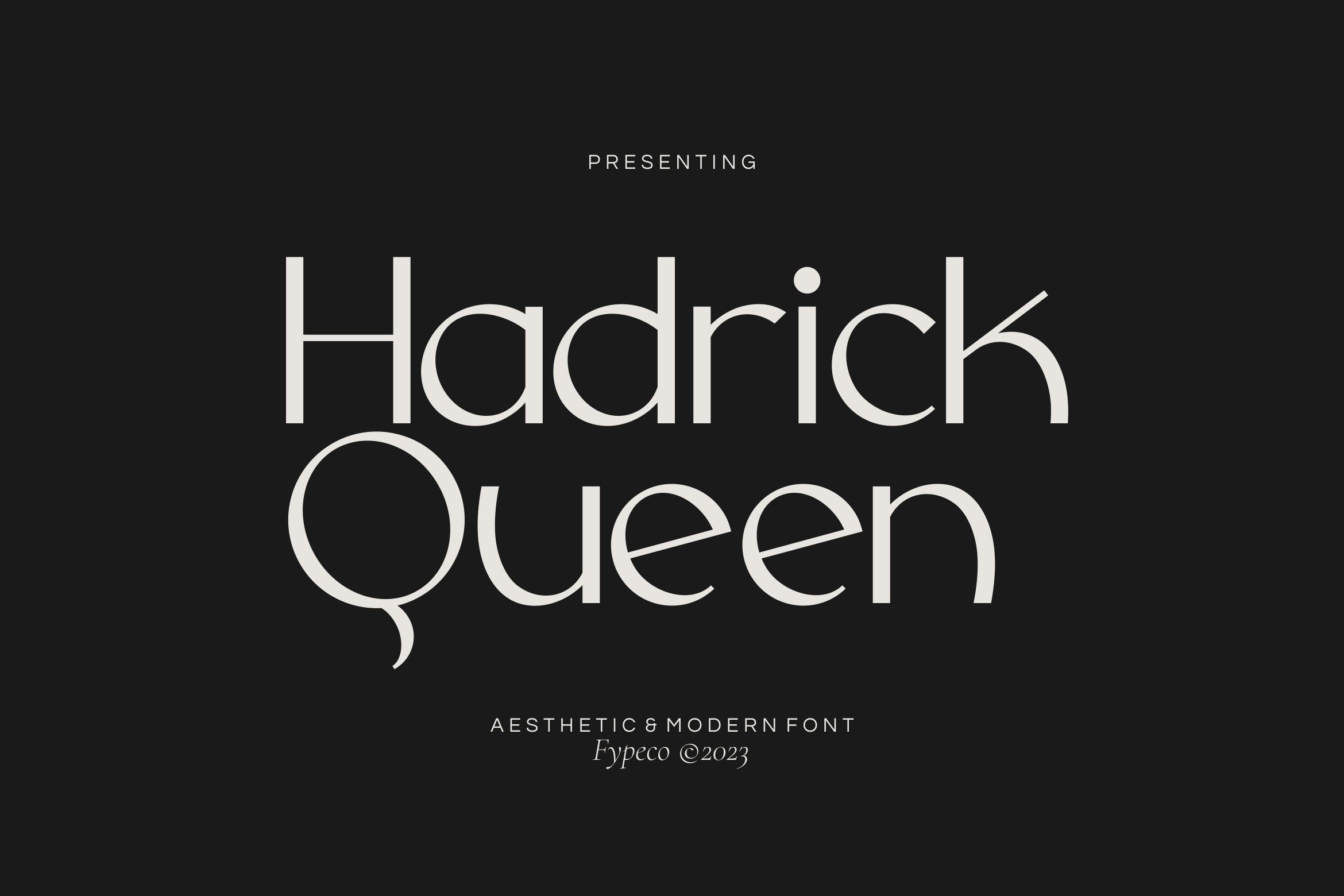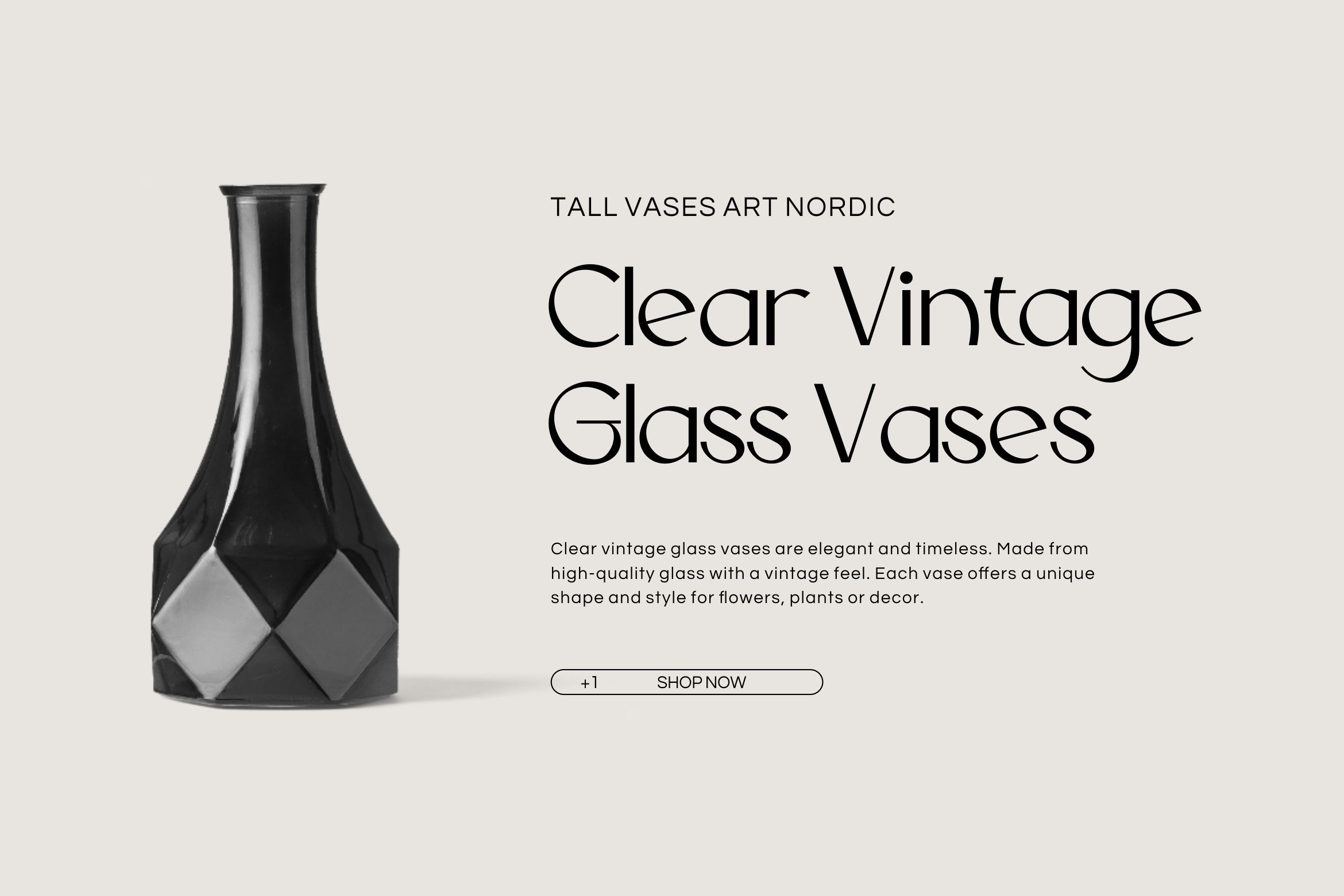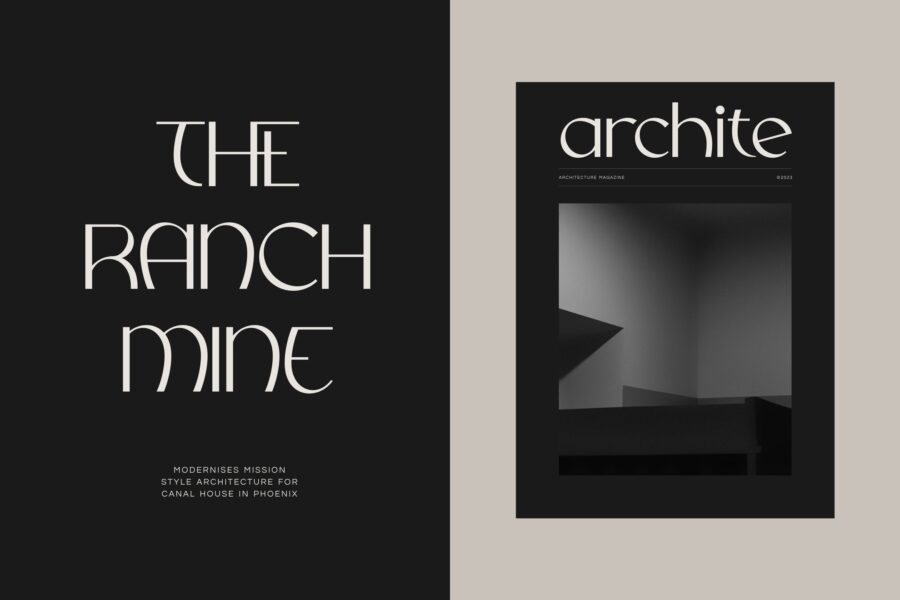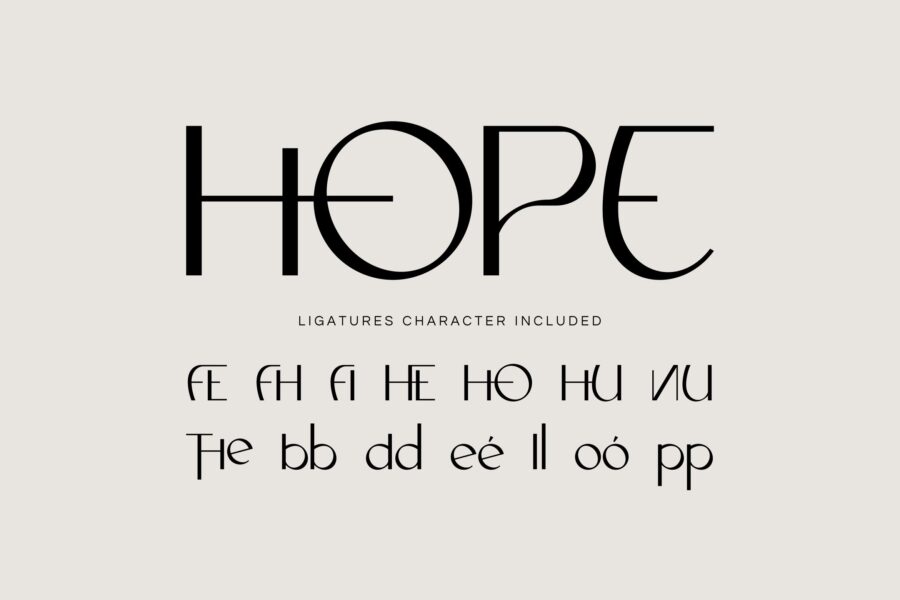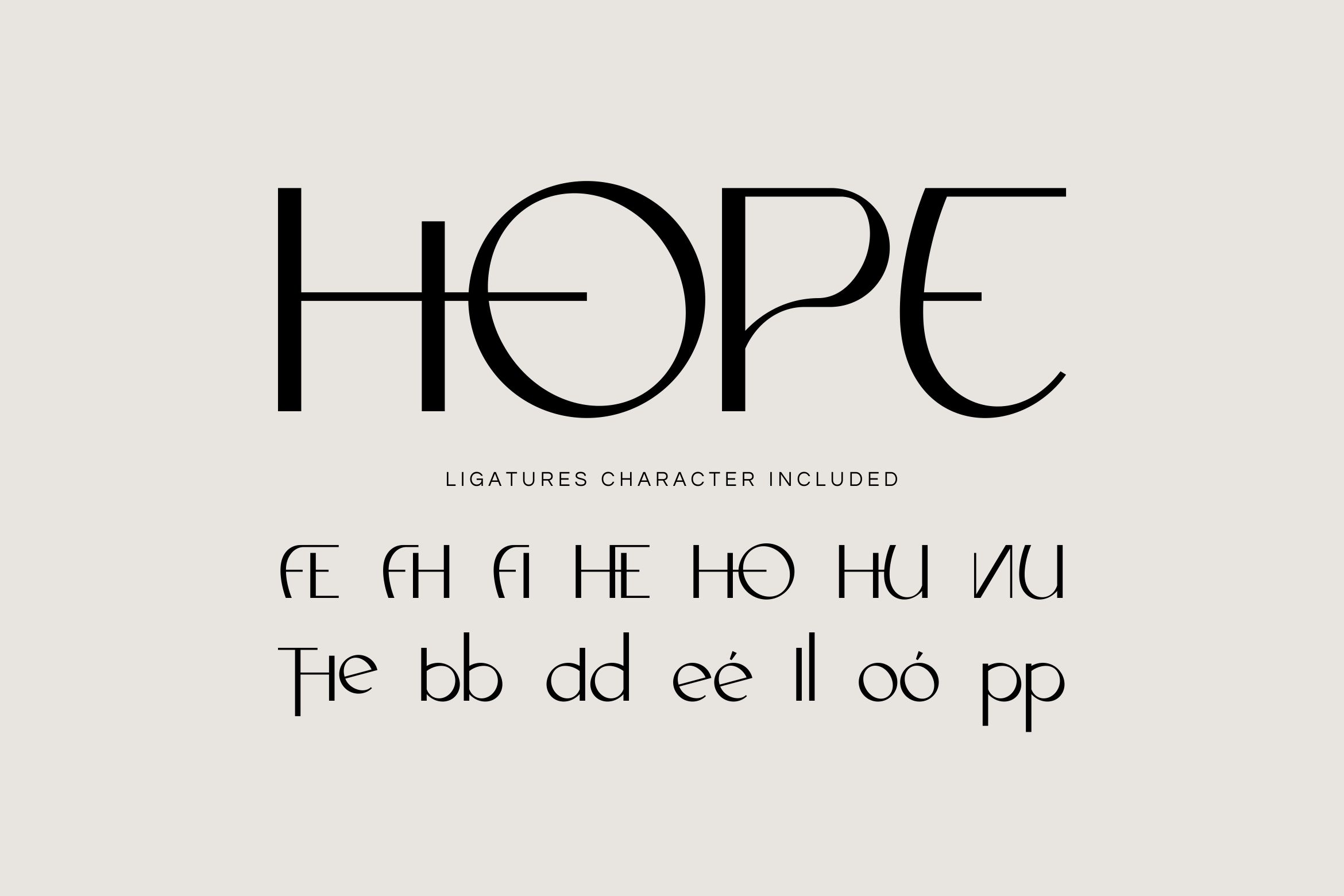
Hadrick Queen is a sleek and modern serif display font with a touch of high-fashion elegance. Its soft curves, distinctive ligatures, and sharp terminals make it a perfect choice for editorial layouts, luxury branding, product packaging, and stylish headlines. This font blends classic serif foundations with a futuristic twist, giving your typography a unique and upscale personality.
Equipped with uppercase and lowercase characters, numerals, punctuation, multilingual support, and beautiful ligatures, Hadrick Queen offers flexibility and visual harmony across a variety of design applications. Whether you’re working on magazine titles, modern logos, or artistic visuals, this font delivers a powerful and refined presence.
Hadrick Queen